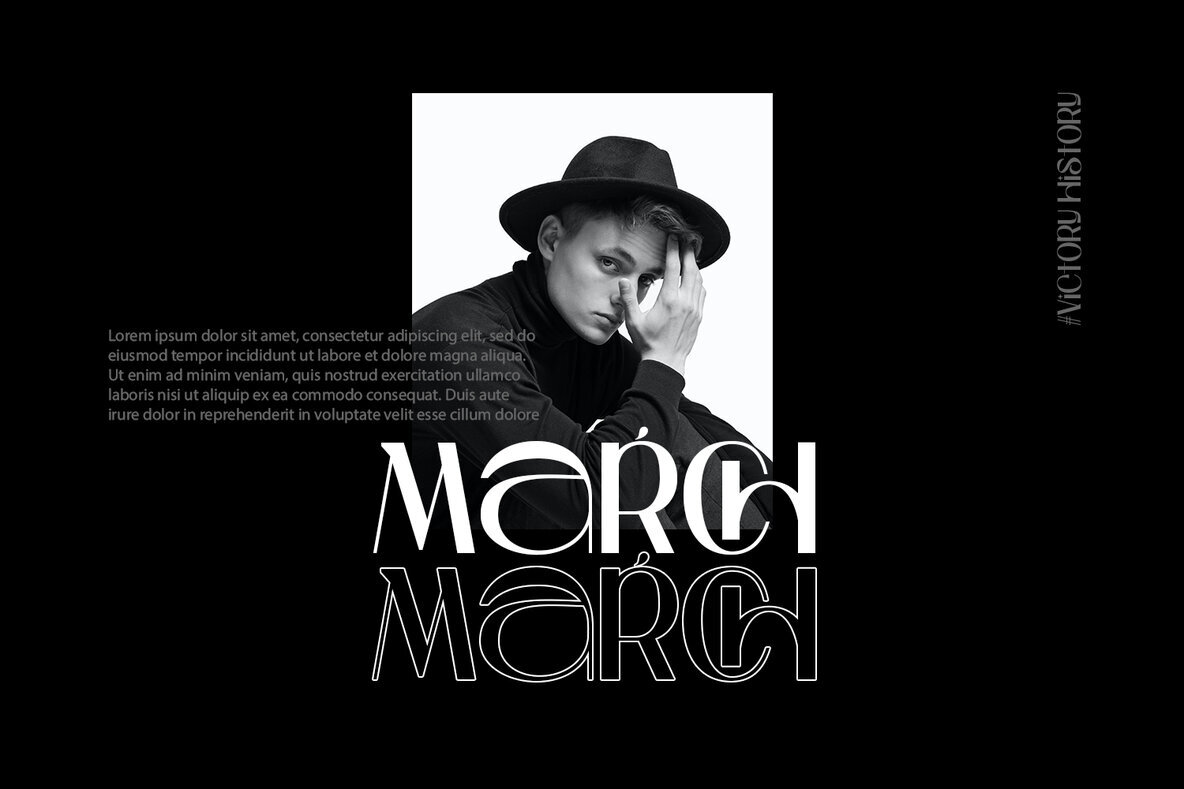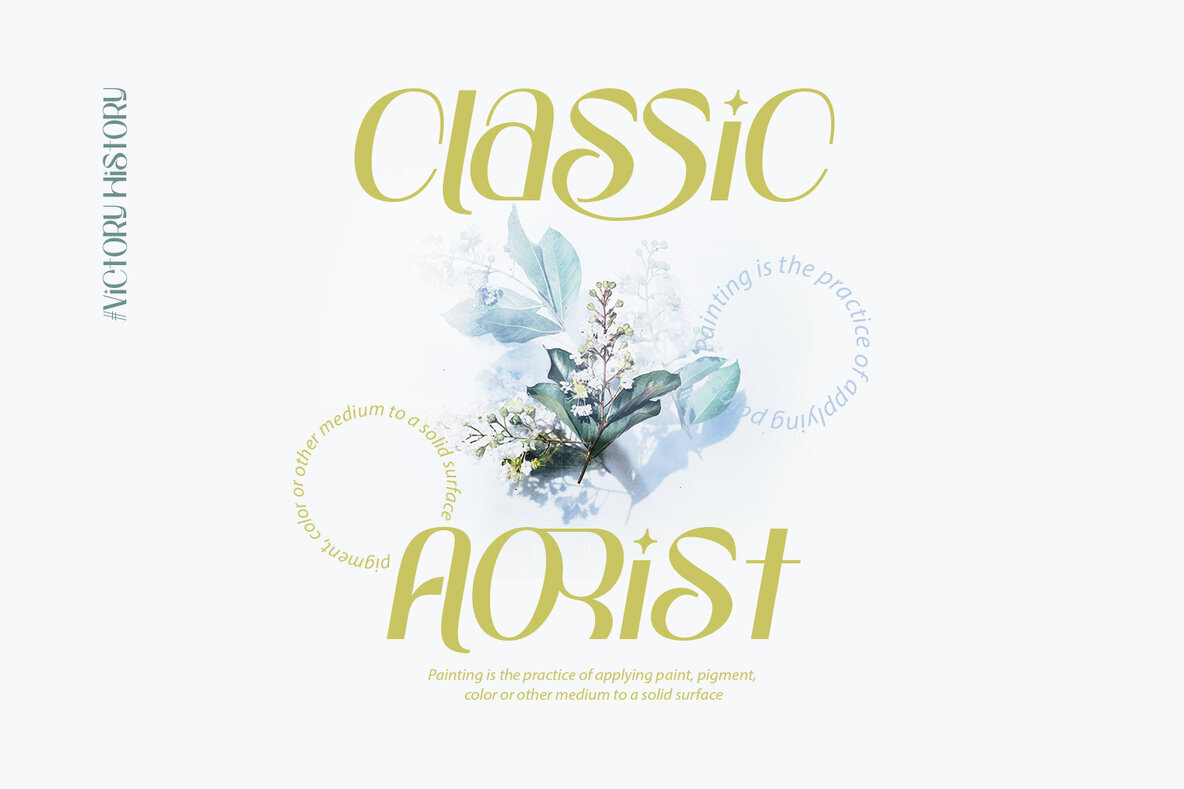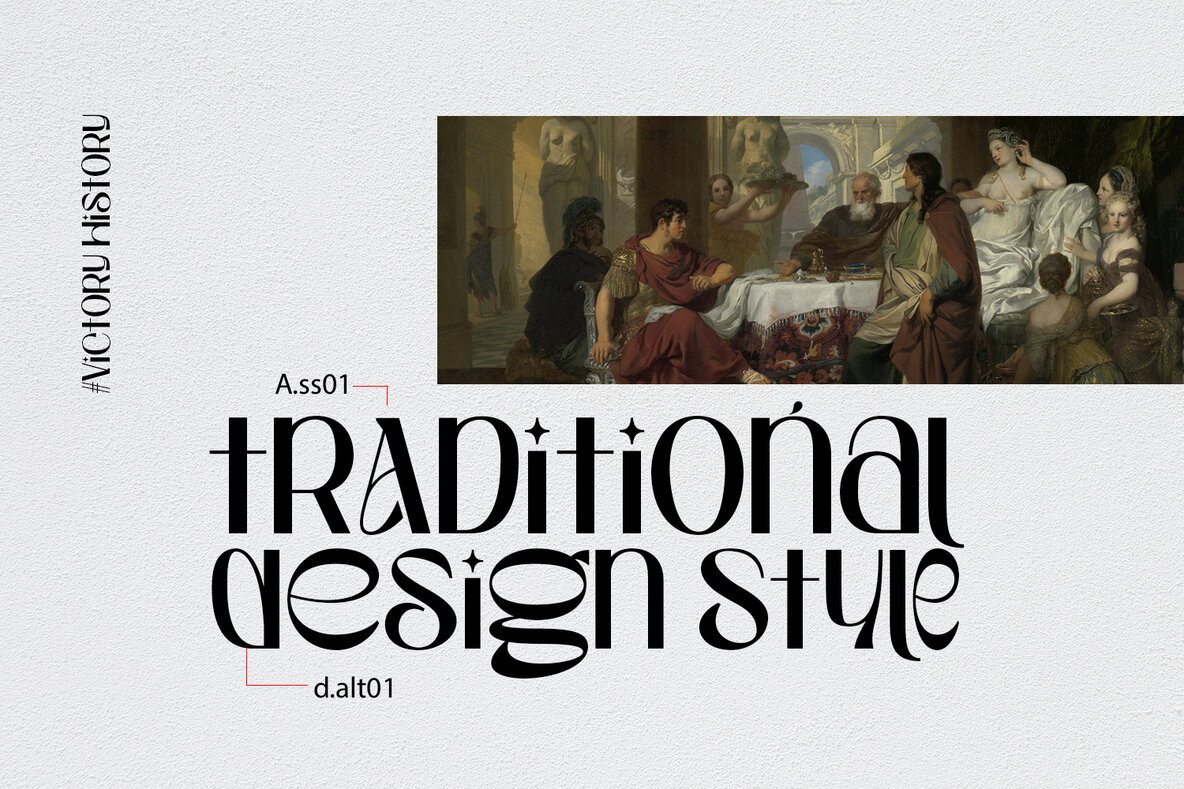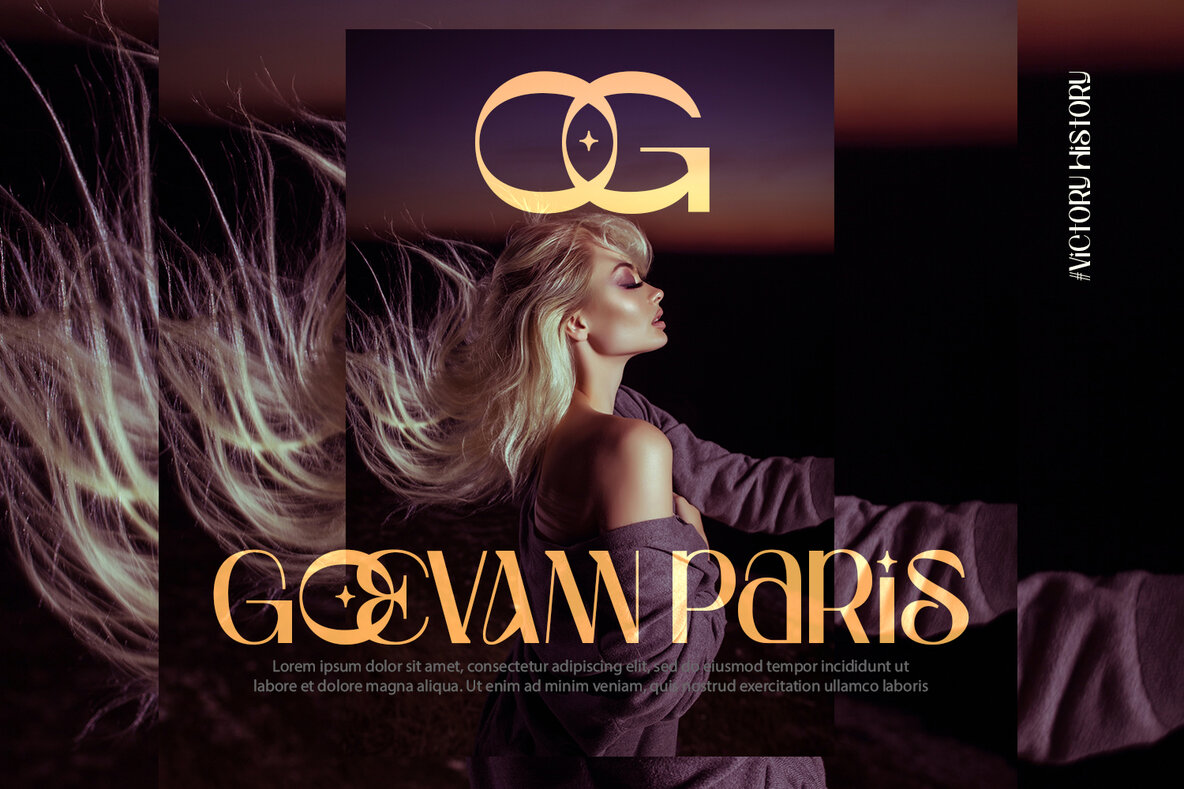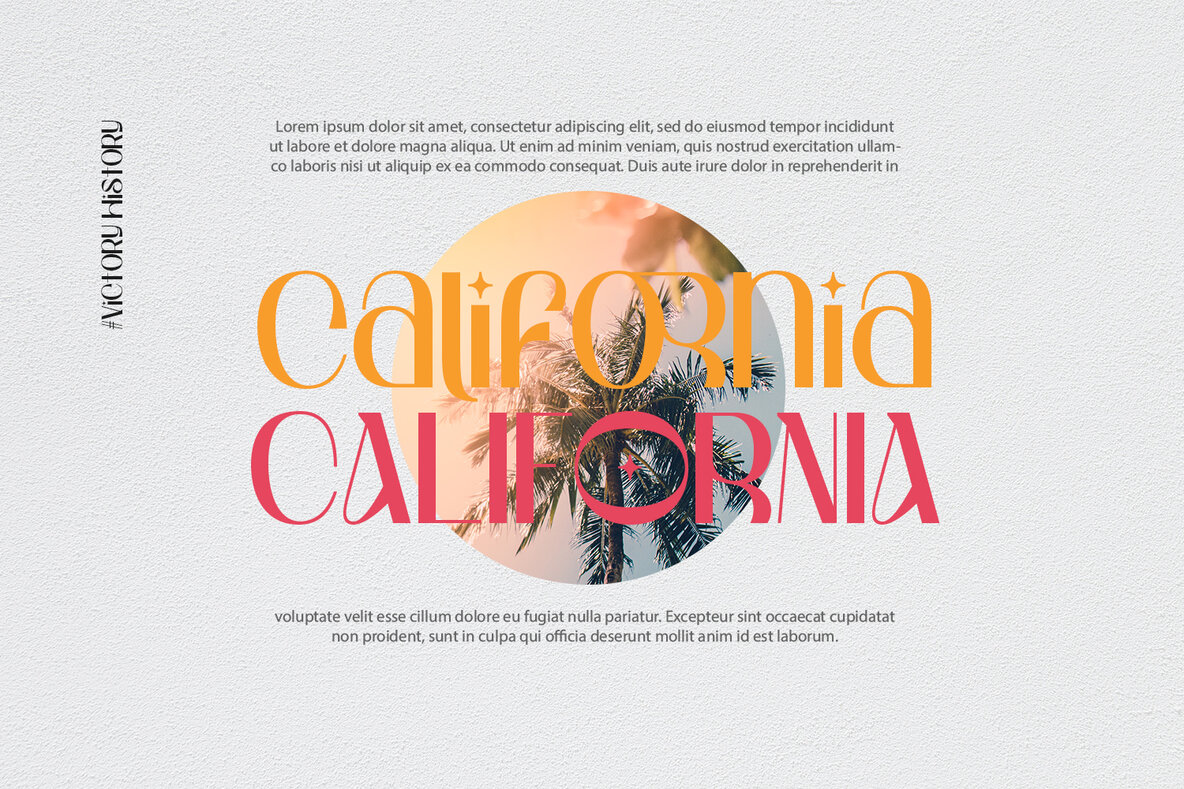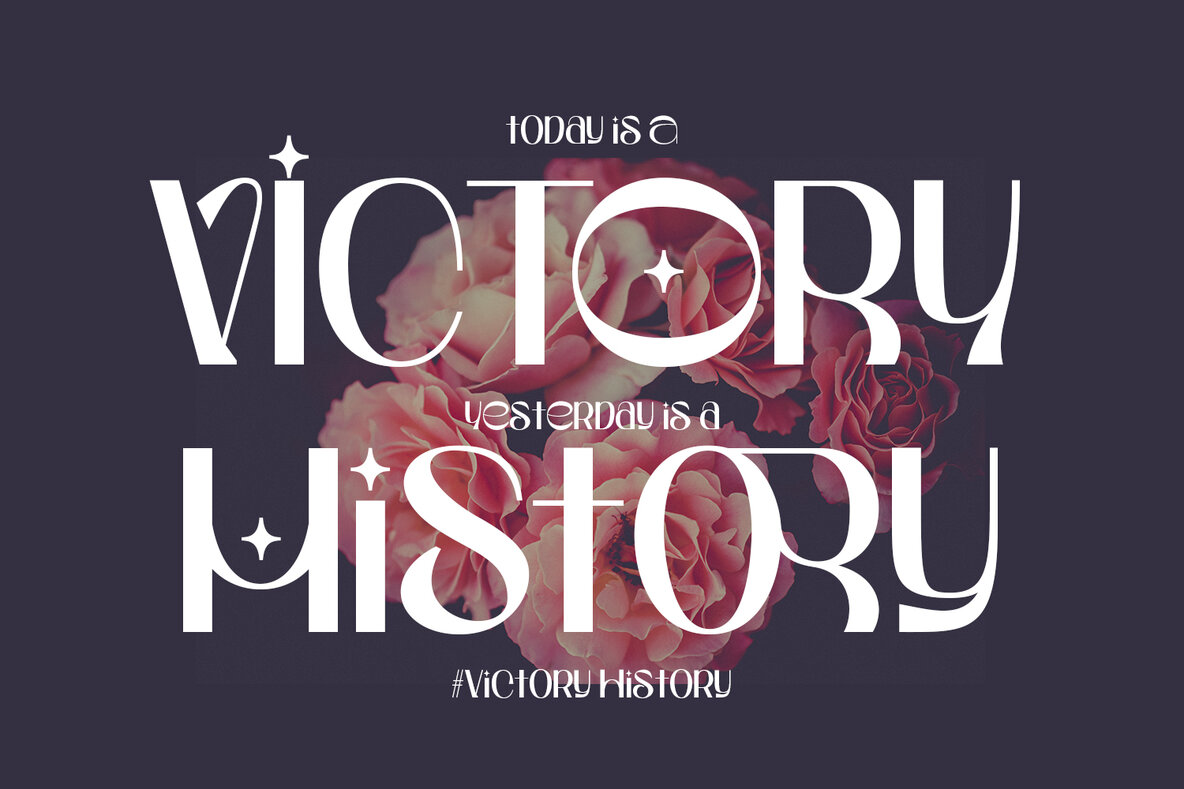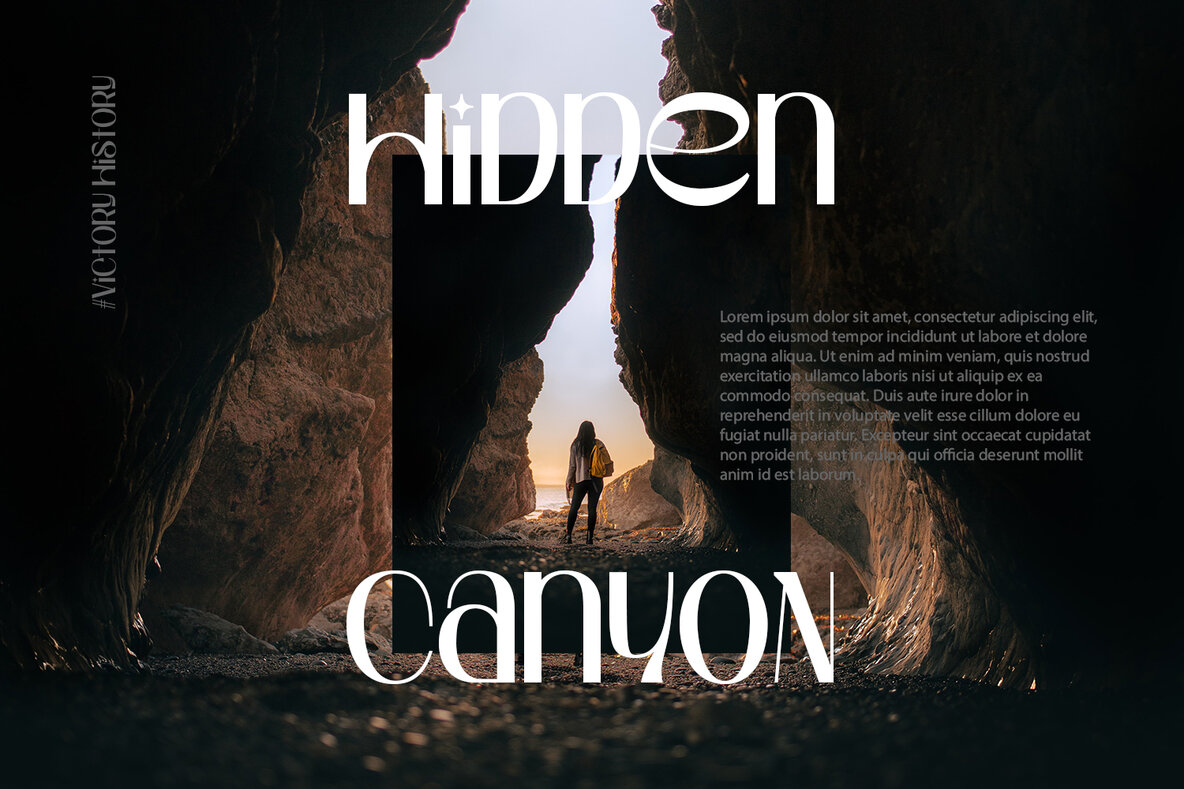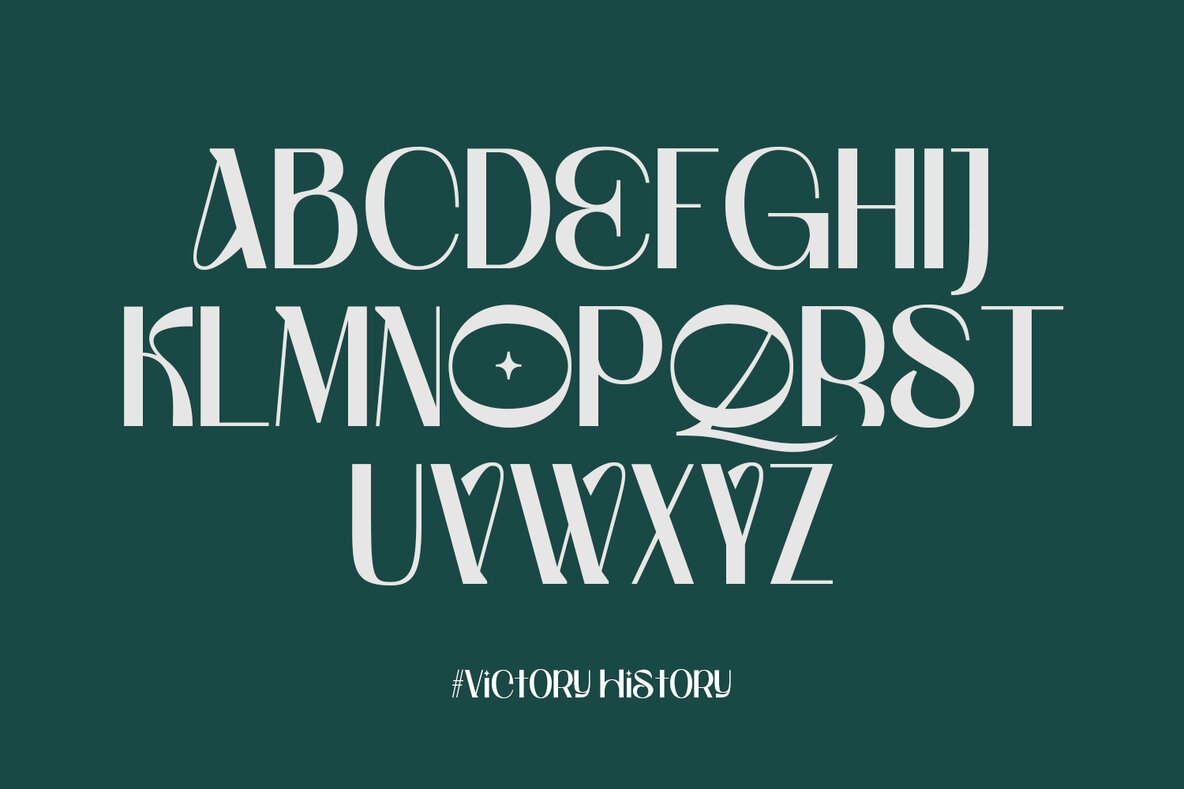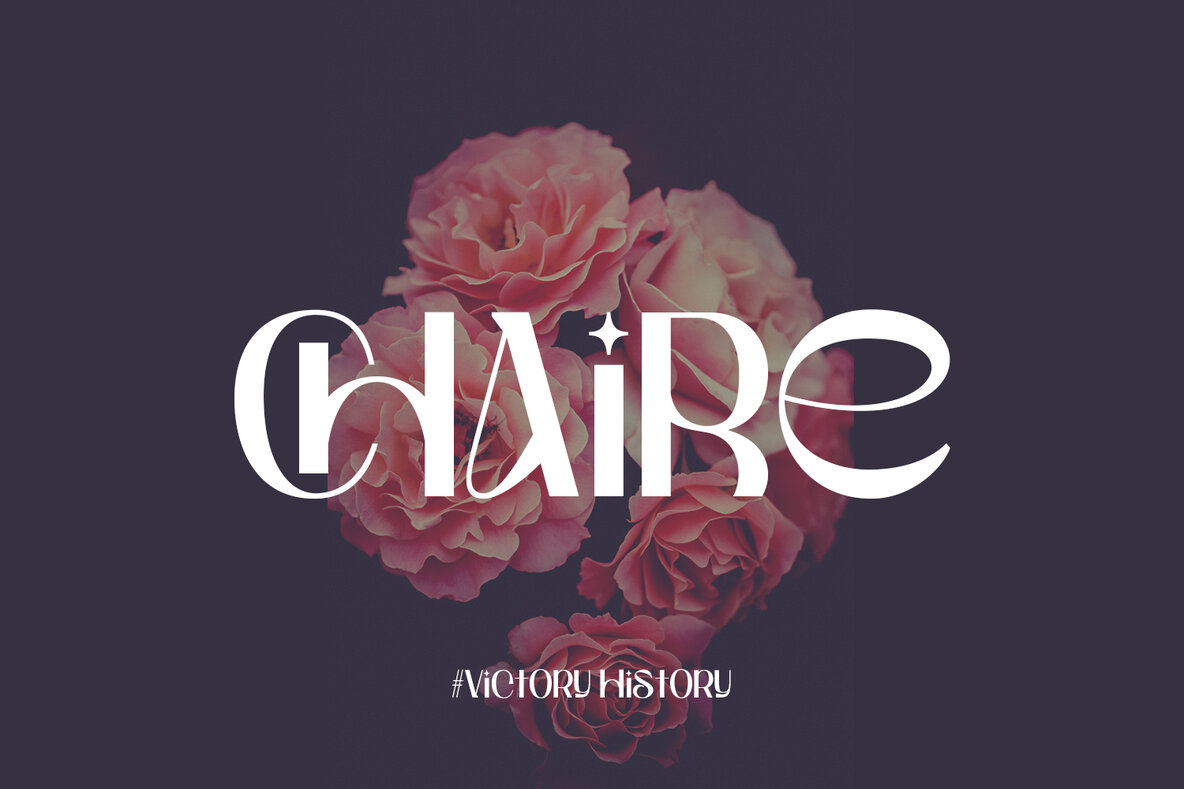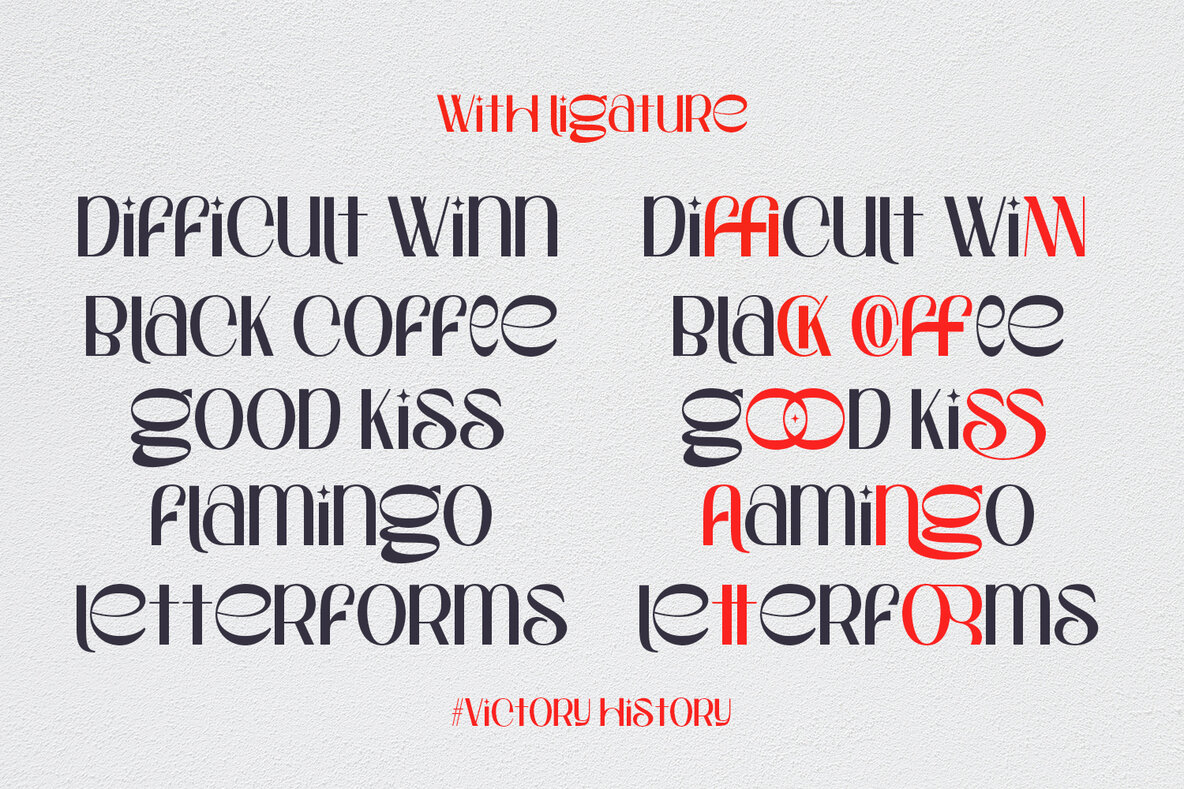
Victory History Font
Victory History
The power of typography lies in its ability to convey a message with clarity and style. Victory History, a modern sans serif, brings just that to your design projects. Perfectly at home in branding, product packaging, and beyond, this font adapts to a wide range of creative applications.Victory History: A Modern Sans for Versatile Design
Immerse yourself in the versatility of Victory History, ideal for logos, invitations, labels, and more. Its clean lines and contemporary appeal make it a go-to choice for designers aiming to create impactful visual experiences.